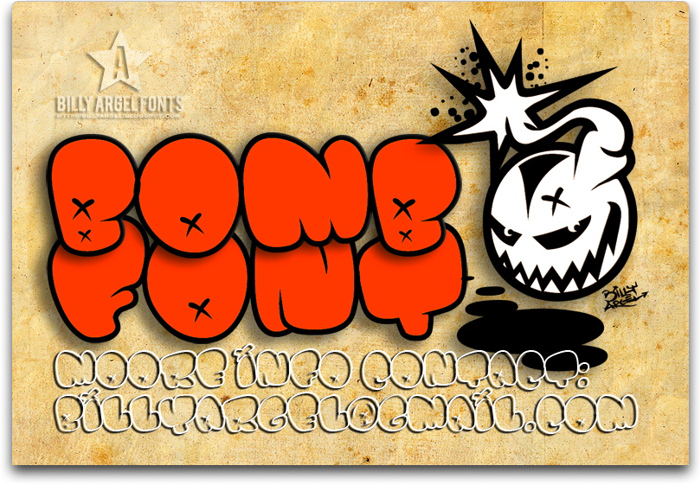
BOMB FONT
About BOMB FONT
14 years agoNicee !! <3 😛
14 years agoIT'S AWESOOME .. I LIKE THE FATTY STYLE
14 years agoGREAT FONT!
almost 14 years agoONE OF THE BEST FONTS I FAVED
13 years agoFabulous font! Suitable for just about anything!
13 years agoHaa, reminds me of this style we had in Mizmi, fl when I was bombin as a jitt, we called it 1stroke
12 years agoamazing!?
11 years agoI'm thinking to use this font for my mural im doing..
11 years agosickest font ever
11 years agothis font is cool
11 years agoAaaarrrrggggghhhhh!!!!!!!!!
10 years ago♥♥♥
Cool!